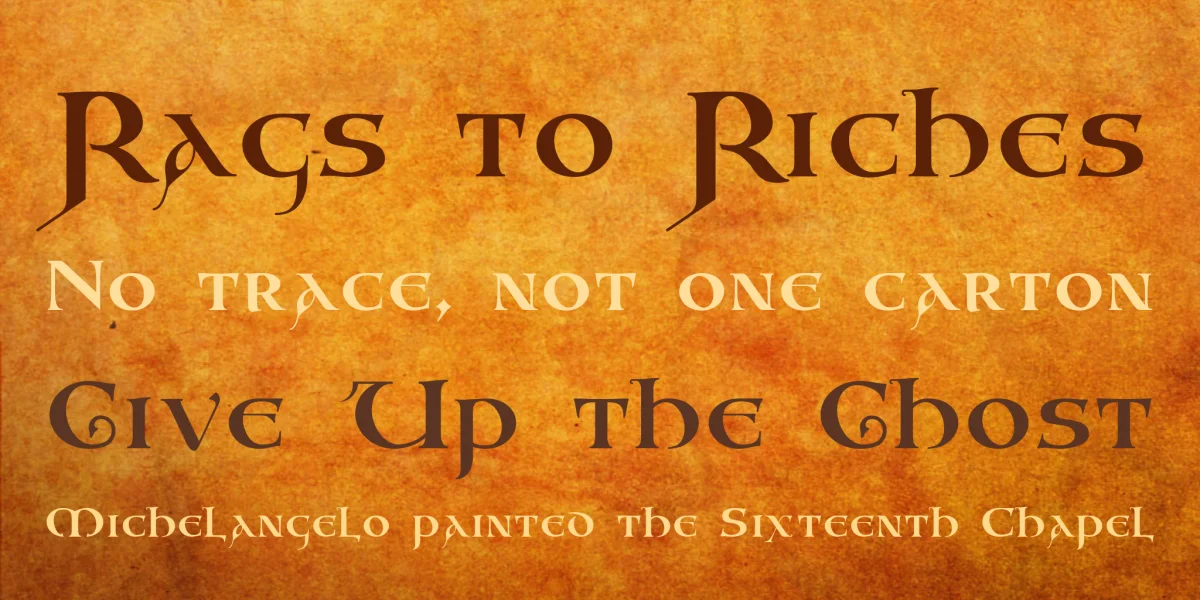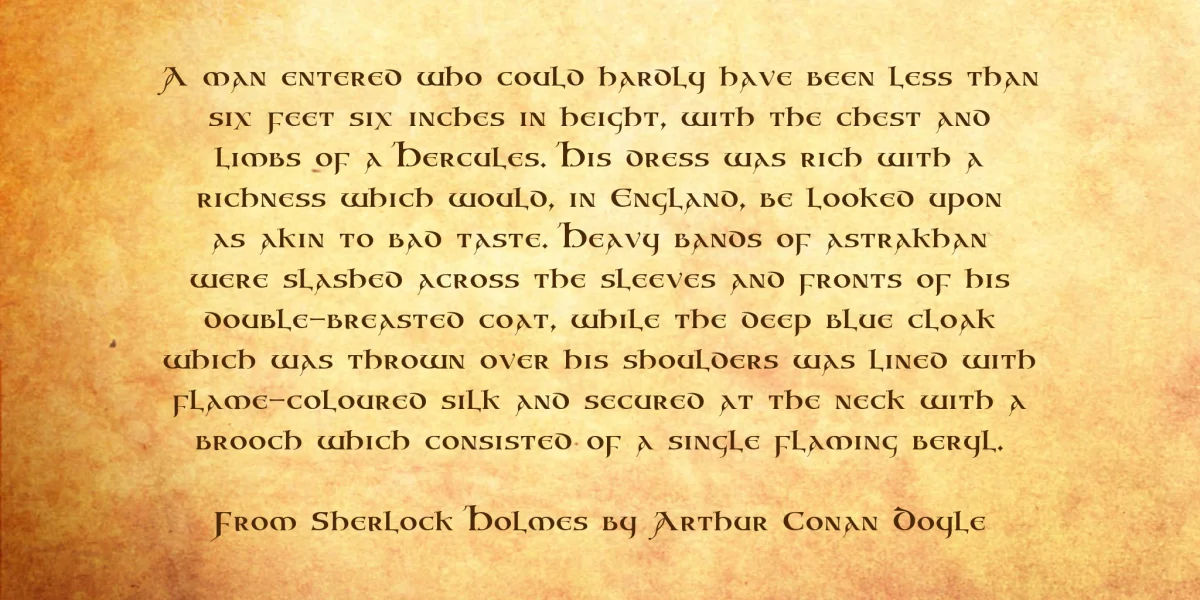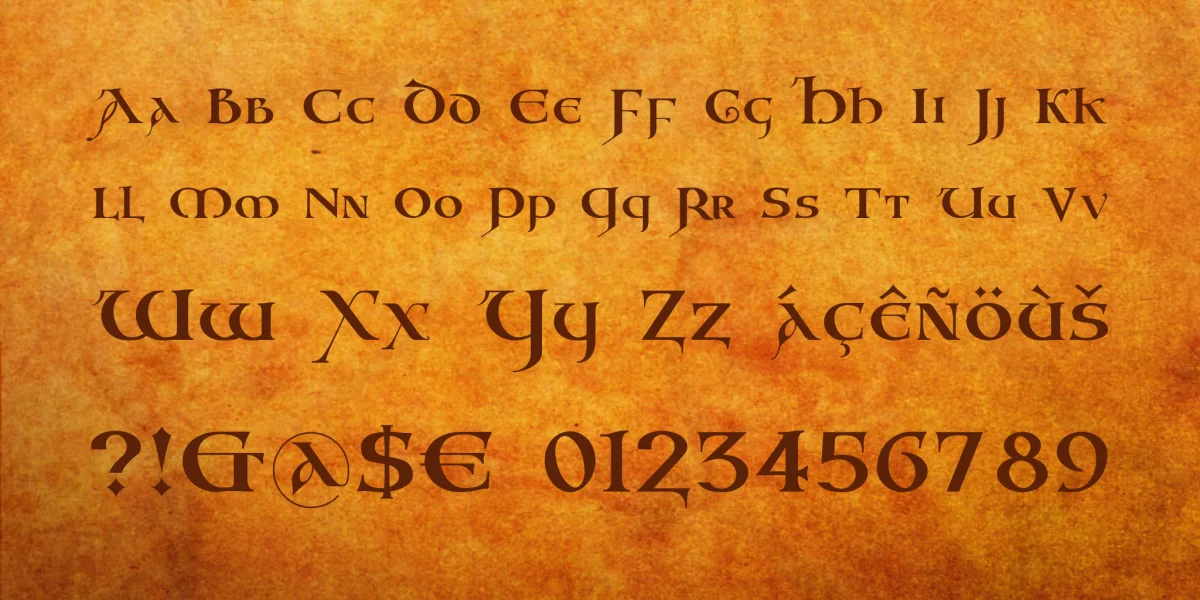
Many years ago, I made Vespasian, an uncial typeface based on George Bain’s version of the lettering from the Vespasian Psalter, a manuscript produced at St. Augustine’s, Canterbury, in the second quarter of the 8th century. Now the manuscript is online, so I had a look and discovered it to be quite different from Bain’s interpretation. And the inevitable happened.
This is an OpenType font using Unicode, with support for most languages using Roman characters, including Vietnamese. Features include initial forms, and some variant characters in ss01. There is a basic uppercase Greek alphabet (the K is based on kappa), and small caps, based on another hand in the same manuscript.